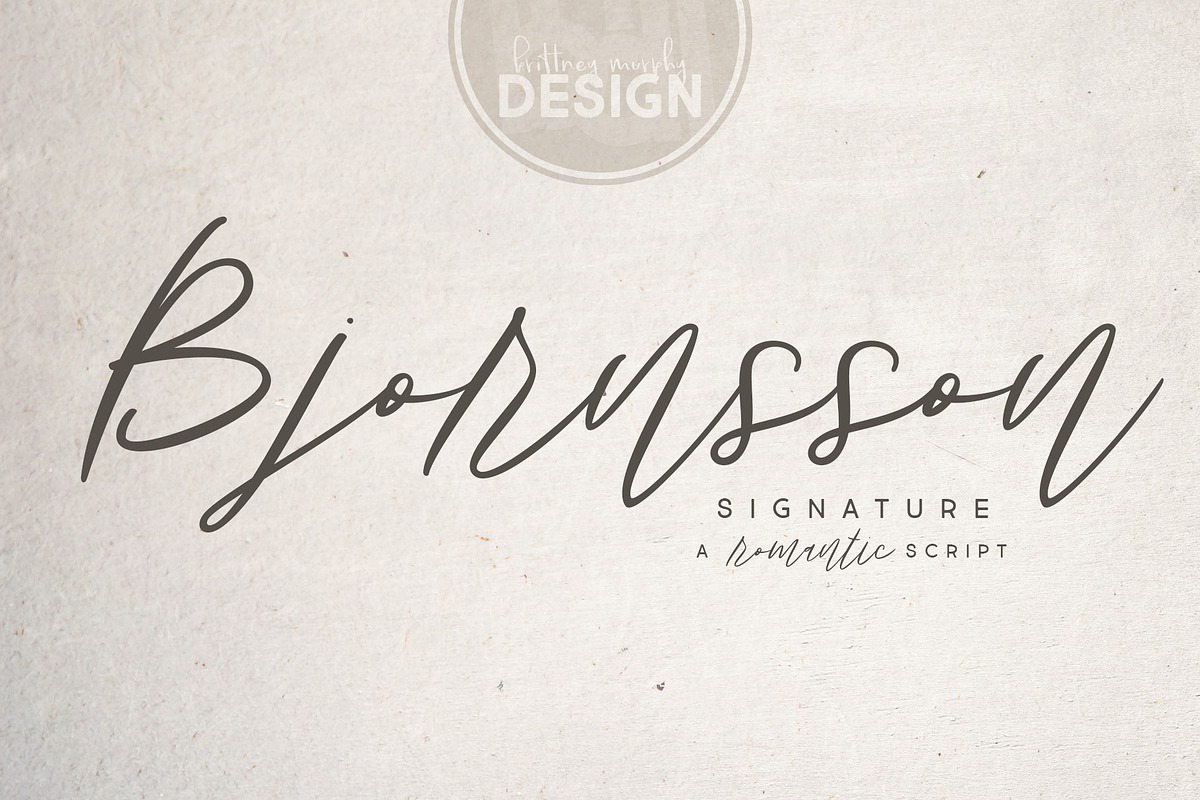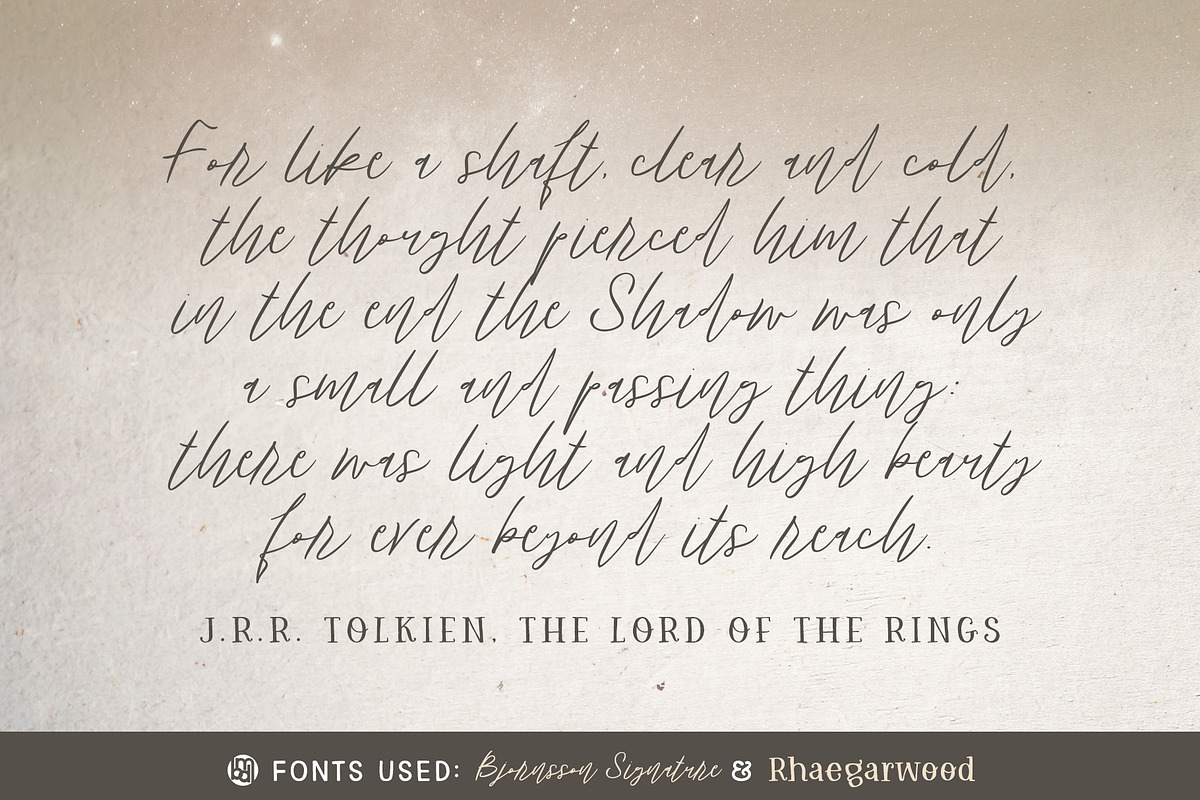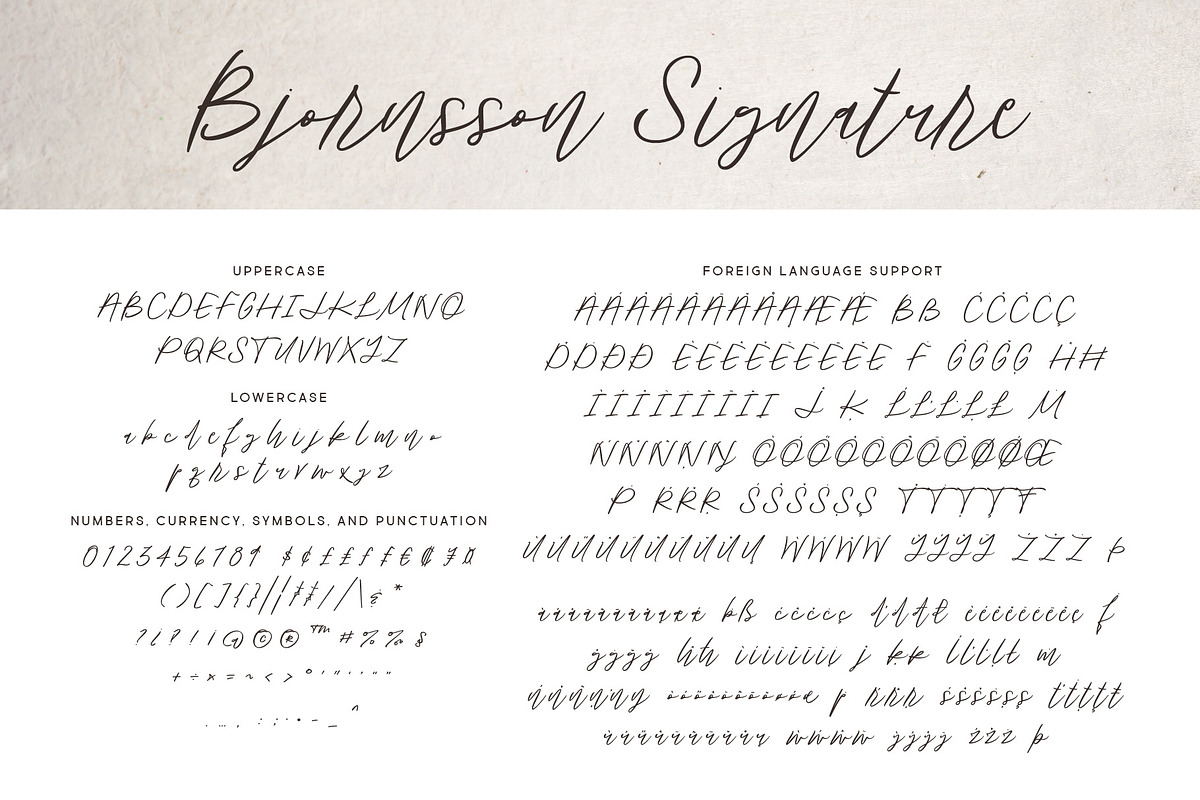
Bjornsson Signature
Bjornsson Signature is an elegant cursive font. It features smaller vowels that make the text look more natural and handwritten instead of perfectly uniform. Great for dressing up or adding a romantic touch to your projects.
Comes with over 300 characters and supports most Latin-based languages.